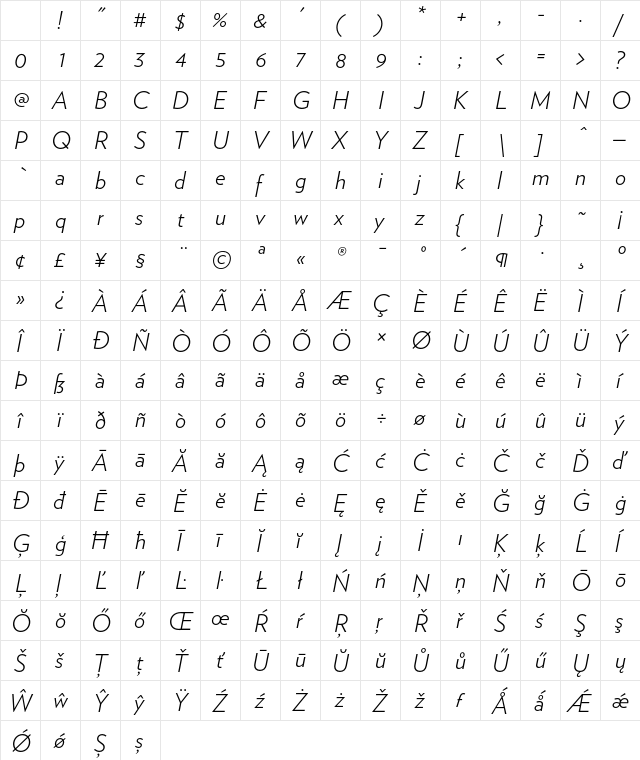
Verlag Light Italic
Foundry: Hoefler & Frere-Jones
Designer: Hoefler & Frere-Jones
Design Context for Verlag
Verlag is a composed and adaptable typeface that performs quietly and consistently across a wide range of design contexts. The slanted form adds forward momentum and visual energy. Its slender proportions lend an understated elegance to any composition.
Pro Tip: Use Verlag for emphasis, pull quotes, and subheadings where its slanted energy can add rhythm to the layout.